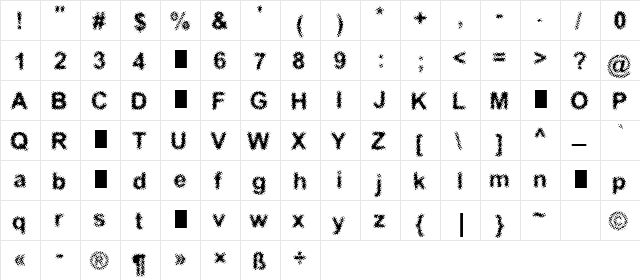
ACTRIAL Normal
Design Context for ACTRIAL Typeface
ACTRIAL is a composed and adaptable typeface that performs quietly and consistently across a wide range of design contexts.